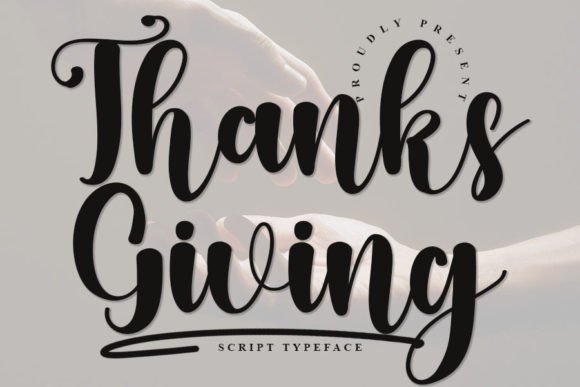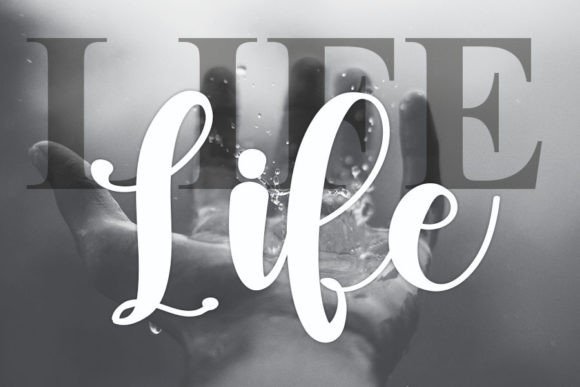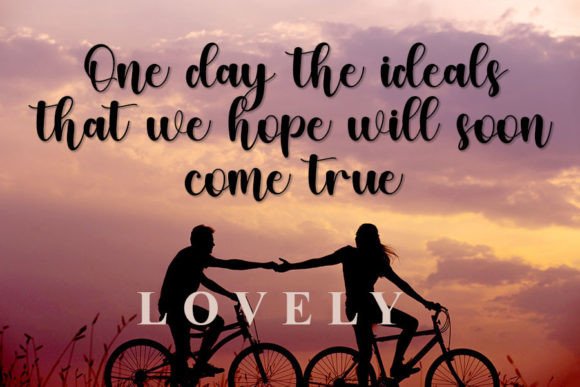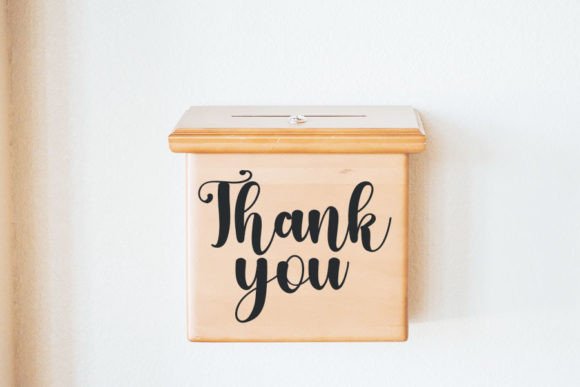
ABOUT THANKS GIVING FONT
Thanks Giving is a stylish handwritten font that exudes a contemporary atmosphere while maintaining impeccable form. Inspired by timeless classic calligraphy, this font effortlessly blends elegance and class, making it the perfect choice for various design projects.
The font’s trendy and modern appeal adds a fresh and sophisticated touch to any design. Whether you’re creating wedding invitations, branding materials, social media graphics, or even packaging, Thanks Giving will elevate your projects with its refined aesthetic.
Thanks Giving captures the essence of traditional calligraphy, showcasing its fluidity and grace. The carefully crafted letterforms and intricate details reflect the meticulous nature of this font, resulting in a visually pleasing and polished appearance. The strokes flow smoothly, creating a harmonious balance between contemporary design and classic calligraphic elements.
With its versatility, Thanks Giving can adapt to different design styles and purposes. It can be used for both formal and informal projects, effortlessly transitioning from elegant wedding stationery to modern logos or website headers. The font’s versatility makes it a valuable asset in your creative toolbox, allowing you to explore various design directions while maintaining a consistent level of sophistication.
Thanks Giving also provides an opportunity for personalization and customization. Its handwritten nature adds a human touch and warmth to your designs, making them feel more personal and engaging to the audience. The font’s natural flow and charming imperfections create a sense of authenticity and uniqueness, making each project truly one-of-a-kind.
In summary, Thanks Giving is a trendy handwritten font that combines contemporary style with the timeless elegance of classic calligraphy. Its impeccable form and attention to detail make it a standout choice for design projects that require a touch of sophistication. Whether you’re aiming for a formal or modern look, Thanks Giving font will enhance your designs with its refined aesthetic, leaving a lasting impression on viewers.